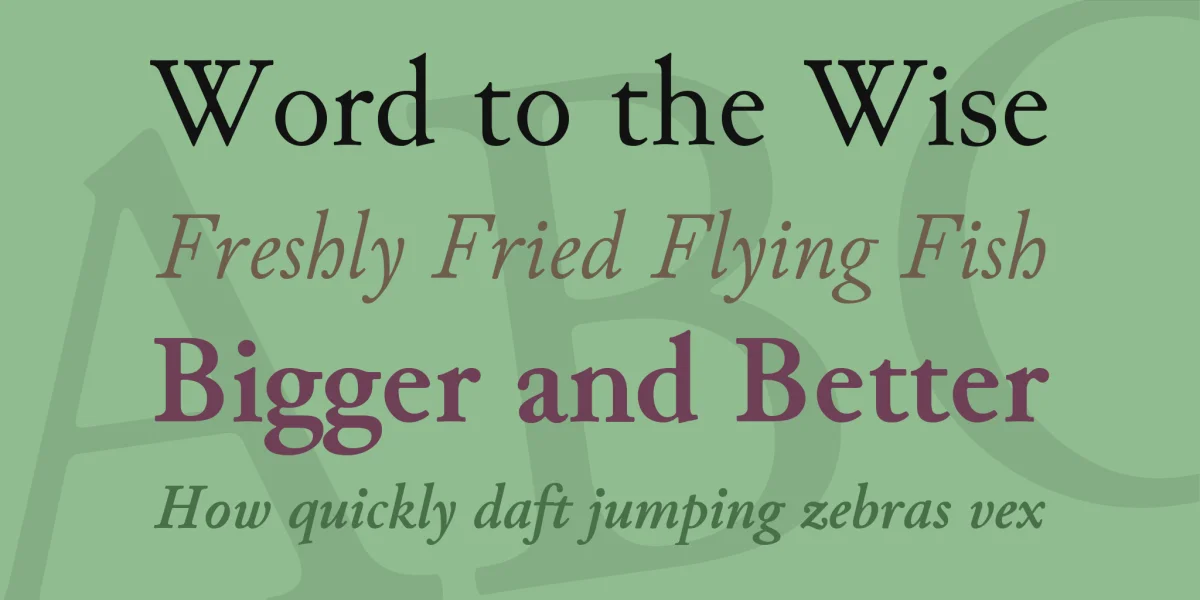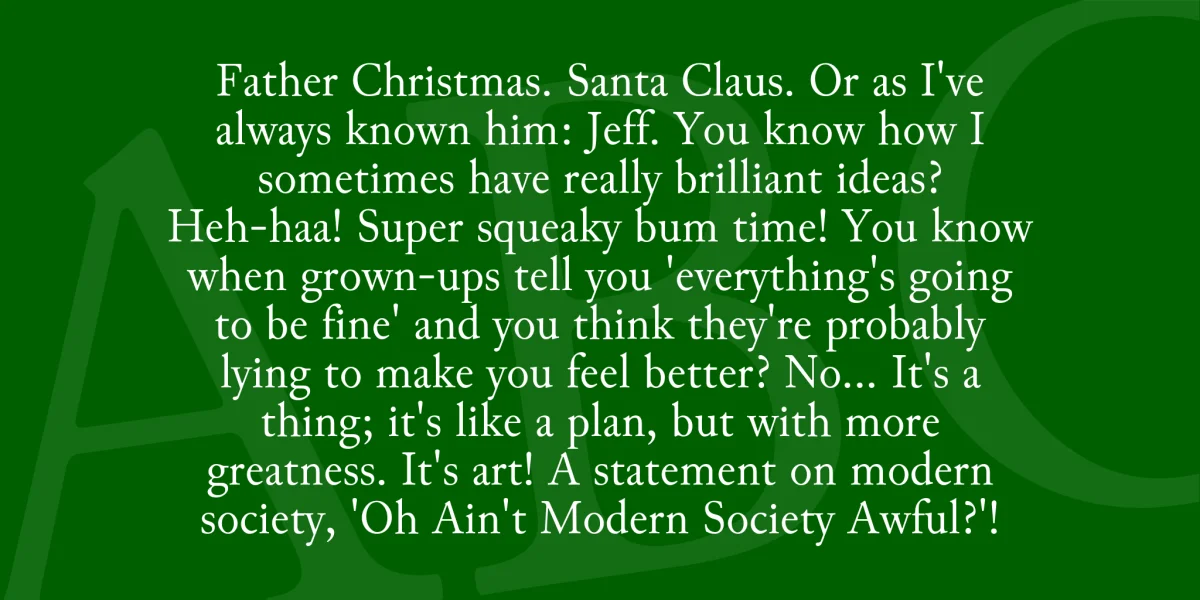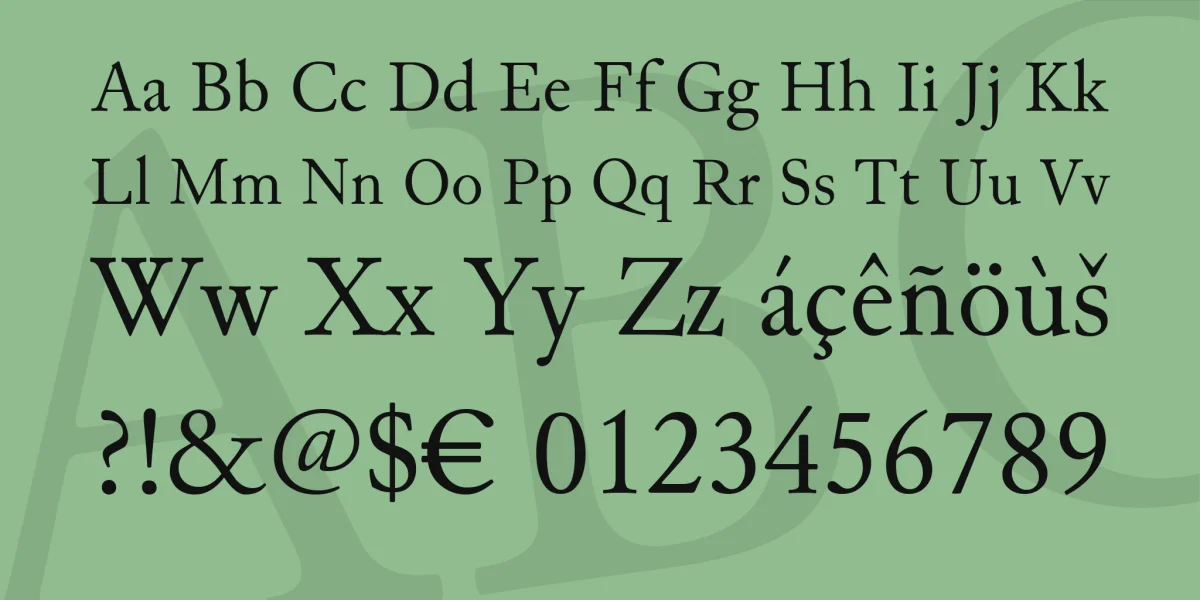
Junicode (short for Junius-Unicode) is a Unicode font for medievalists. The current version is a beta; the selection of characters and the arrangement of the Private Use Area are subject to change. Your comments, suggestions and bug reports will be a great help to me as I complete the project.
Junicode currently (as of version 0.7.2) contains 3310 characters in the regular style (the italic, bold and bold italic styles are less complete). These Unicode ranges are either complete in the regular style or they contain substantial numbers of glyphs (especially those of interest to medievalists):
Basic Latin
Latin 1 Supplement
Latin Extended A
Latin Extended B
Latin Extended D
Latin Extended Additional
IPA Extensions
Phonetic Extensions
Spacing Modifier Letters
Greek
Greek Extended
Combining Diacritical Marks
Combining Diacritical Marks Supplement
Runic
Number Forms
Enclosed Alphanumerics
General Punctuation
Superscripts and Subscripts
Gothic